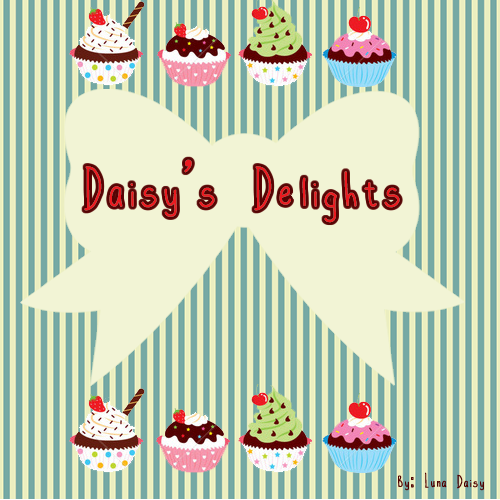
Preview and download Daisy's Delights Font. Created by Luna Daisy in Script Handwritten styles with Free for personal use license.
Daisy's Delights is an adorable and yummy font baked with love by yours truly. This font includes a few doodles, hope you guys will like it as much as I do. Free for personal use only, for commercial use please send me a private message on here or email me at lunadaisy93@outlook.com You can redistribute my fonts on your site as long as you credit to me as the original creator. Also, sending me a sample of your finalised work would be nice too. Have a nice day! mwa Luna |